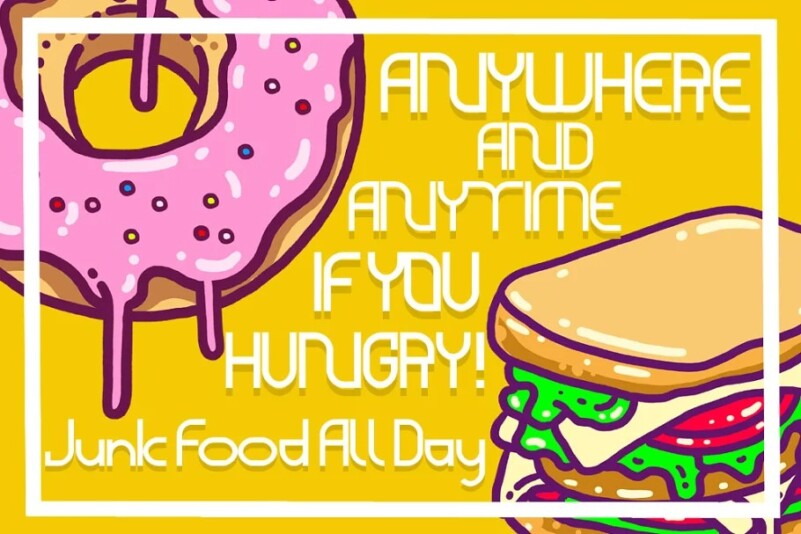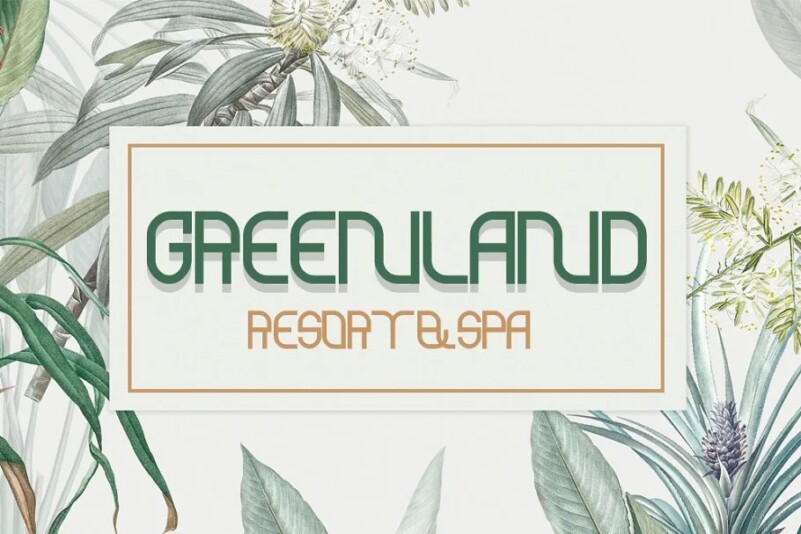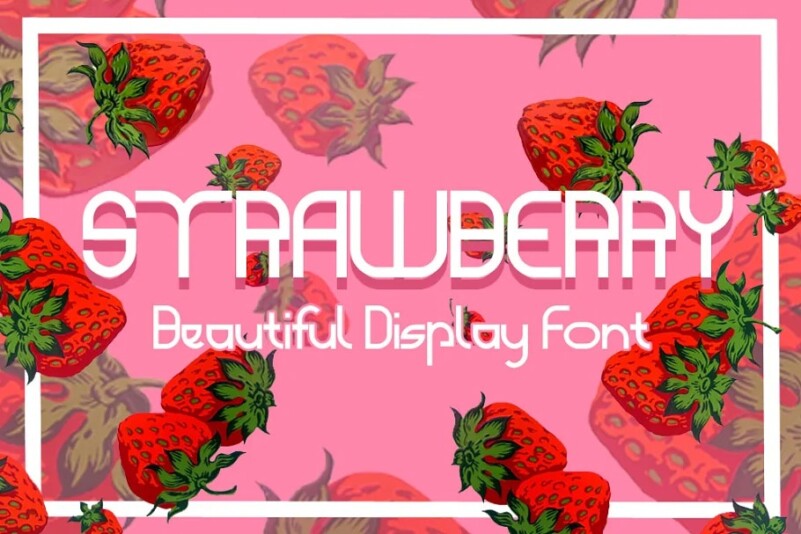
STRAWBERRY – beautiful display font
introduces beautiful display fonts, made for any product. easy to use and very beautiful for all branding. consists of uppercase, lowercase, numeral & punctuations and also multi language. This font was created for all forms of business and branding such as clothing, logos, skate boards and others according to your needs. enjoy it. thanks.